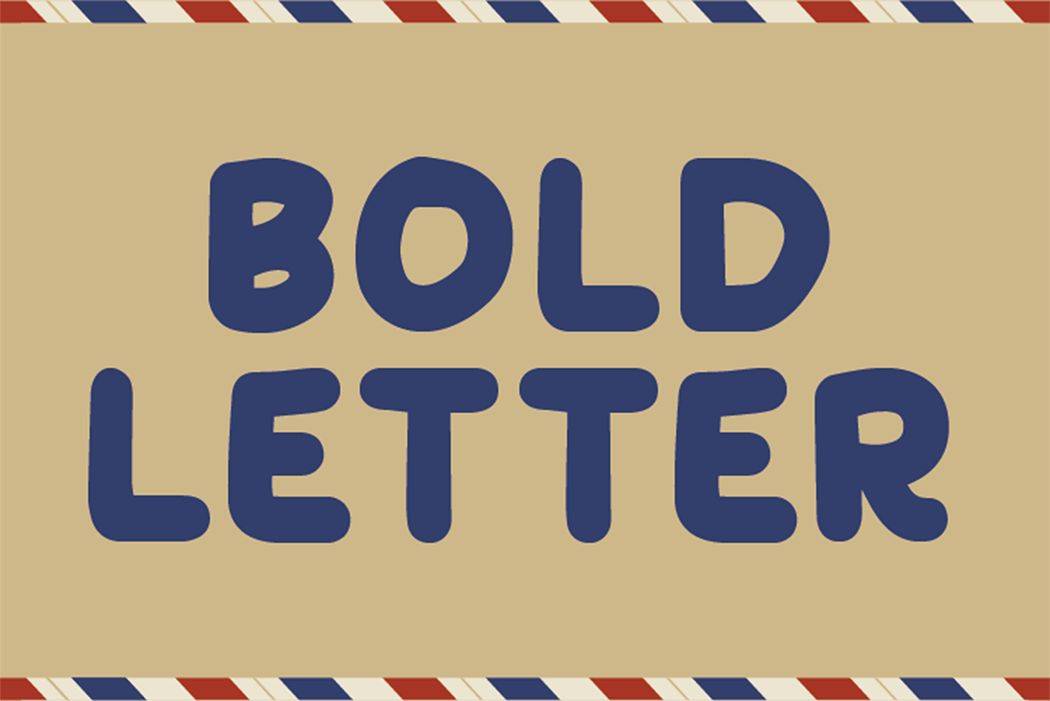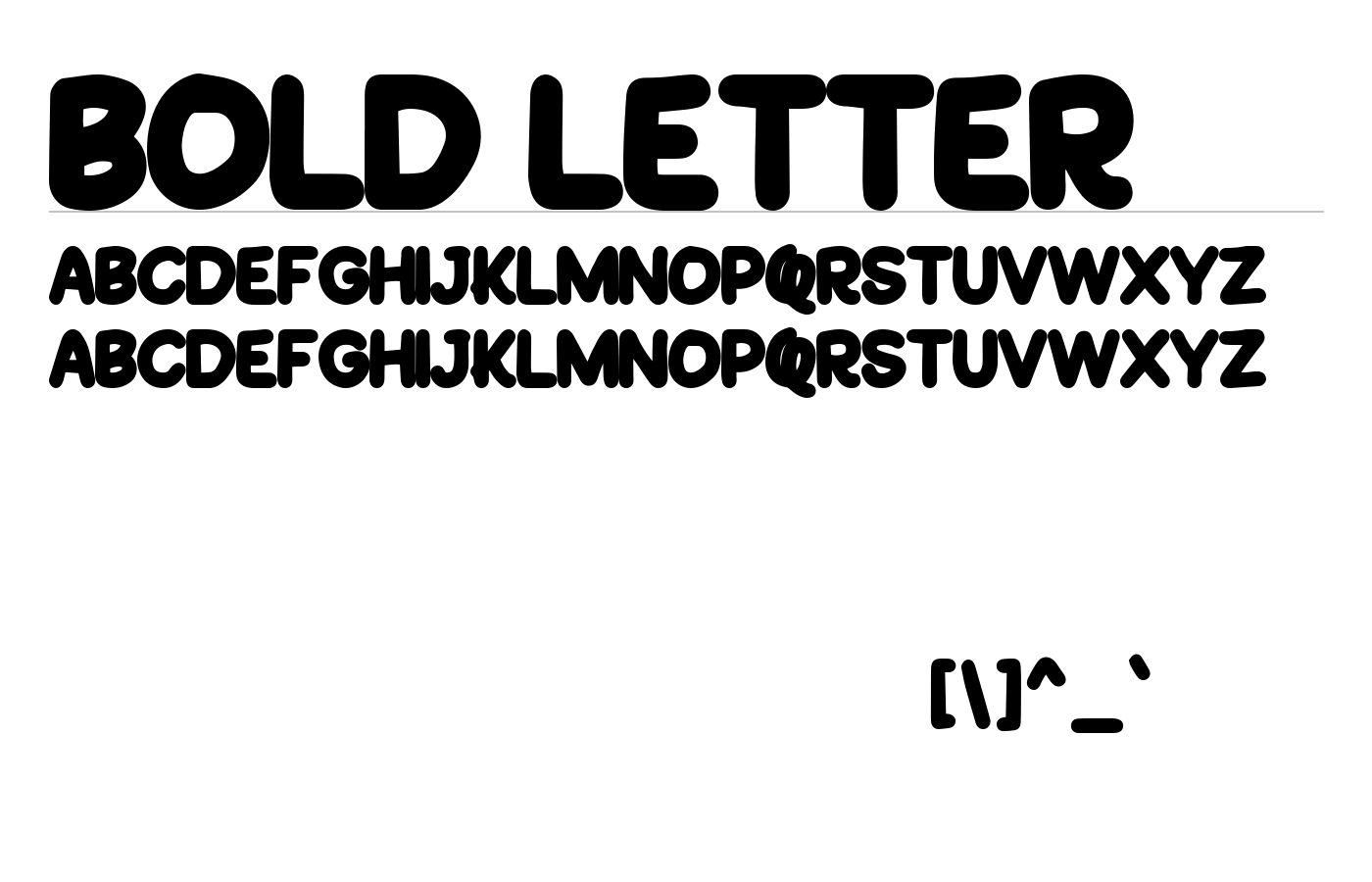
Bold Letter Font is a playful, chunky sans serif typeface with rounded edges and a friendly, informal feel. Its heavy weight and slightly irregular strokes make it perfect for fun, casual designs like children's books, posters, or branding that aims to be approachable and lively. This font works best in headlines or display uses where bold personality and readability are key.